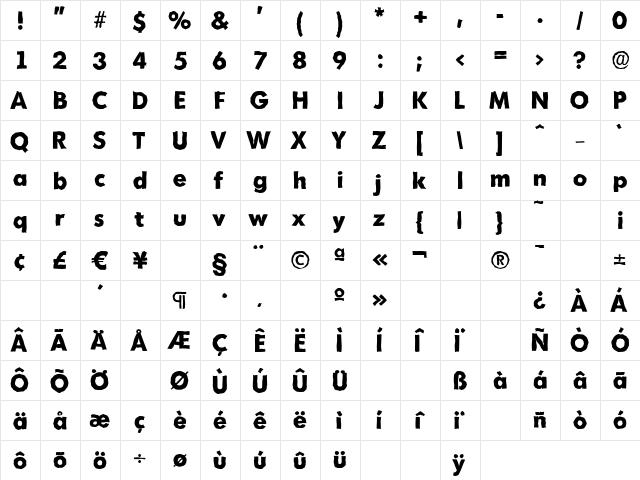
MontrealAntique-Xbold Regular
Design Context for MontrealAntique-Xbold Typeface
MontrealAntique-Xbold has the warm character of retro typography — evoking diners, record sleeves, and the golden age of print advertising. Its bold stroke weight gives it real presence on the page.
Ideal for diner signage, record shop branding, 70s/80s-themed projects, and heritage product labels.
Font Pairing: Combine MontrealAntique-Xbold with a simple slab or neutral sans — period-accurate companions reinforce the vintage feel without competing for attention.
Pro Tip: Lean into MontrealAntique-Xbold's period character by pairing it with aged paper textures, muted colour palettes, and vintage illustration styles.